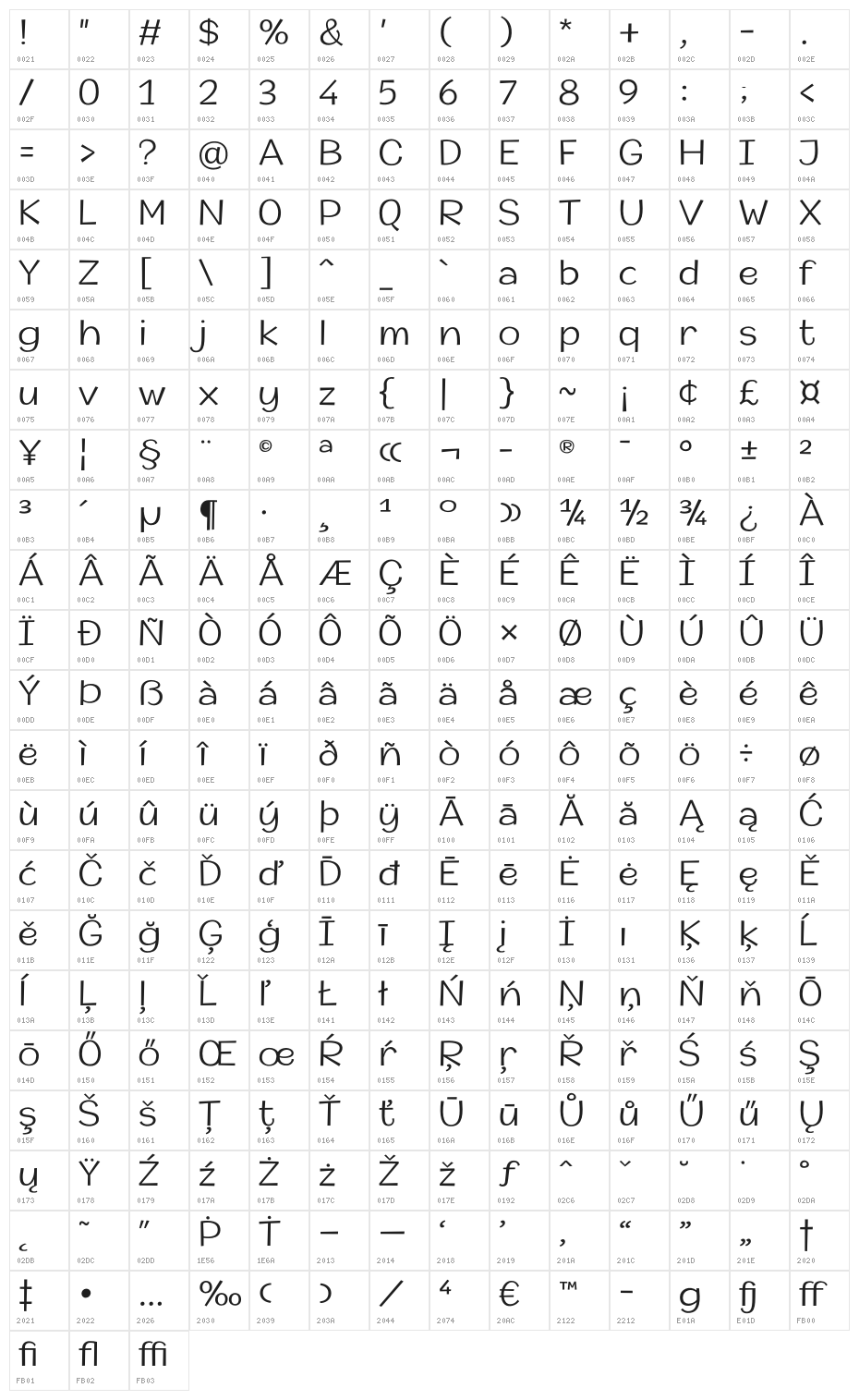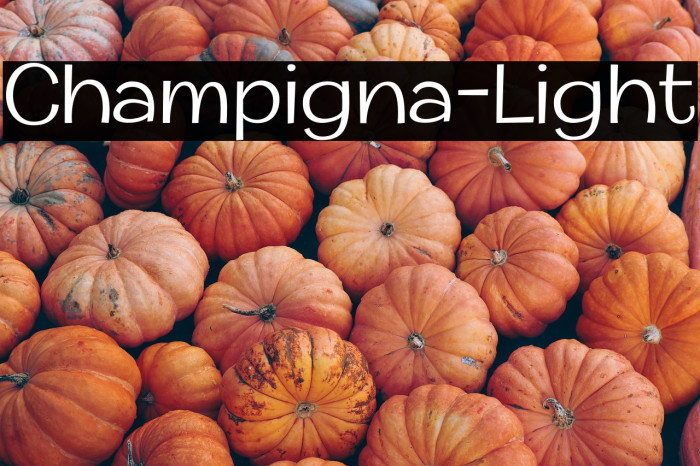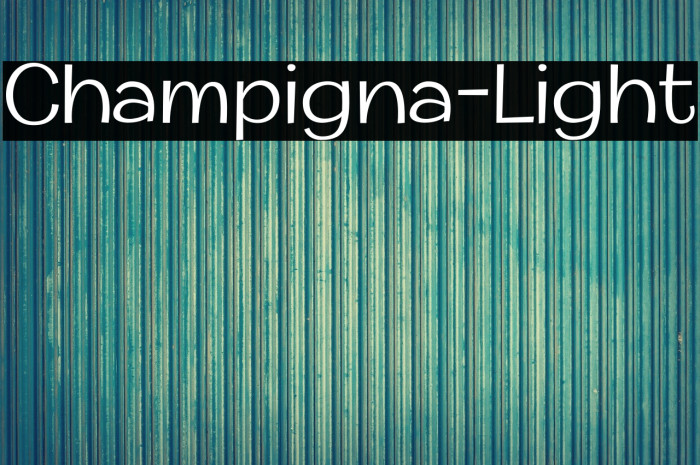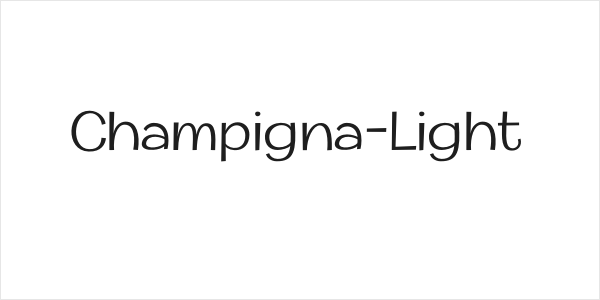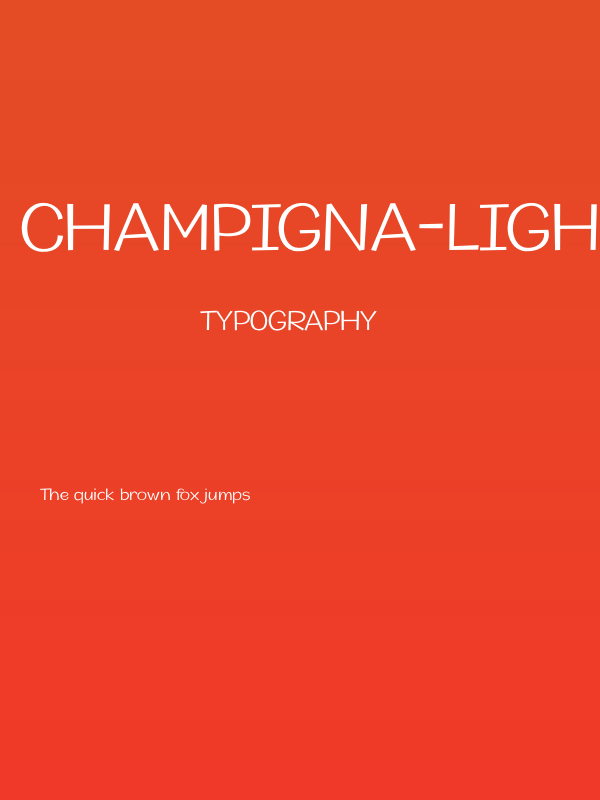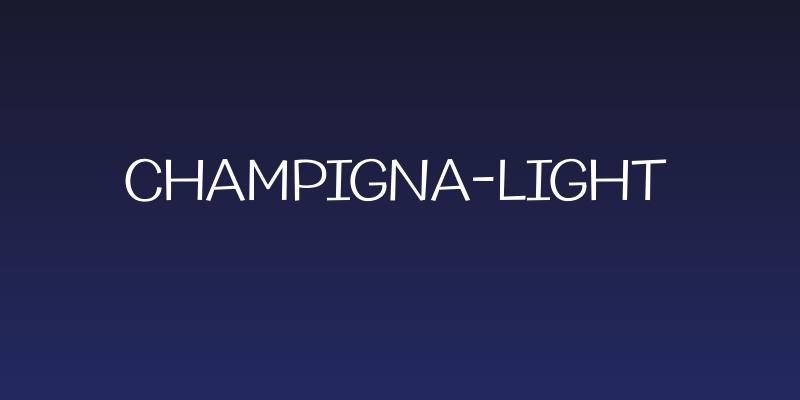
Champigna-Light Font
Champigna-Light Description
This font features a clean and modern sans-serif design with a light and airy feel. The characters are evenly spaced, providing a balanced and harmonious appearance. The uppercase letters are slightly taller than the lowercase, giving a subtle distinction that enhances readability. The numerals are consistent in height with the uppercase letters, ensuring uniformity across different text elements. Special characters are designed to match the overall style, maintaining the font's cohesive look. The smooth curves and straight lines create a contemporary aesthetic, making it suitable for a variety of design applications.
| Proposed Projects | Ideal for branding, web design, and editorial projects where a modern and clean look is desired. |